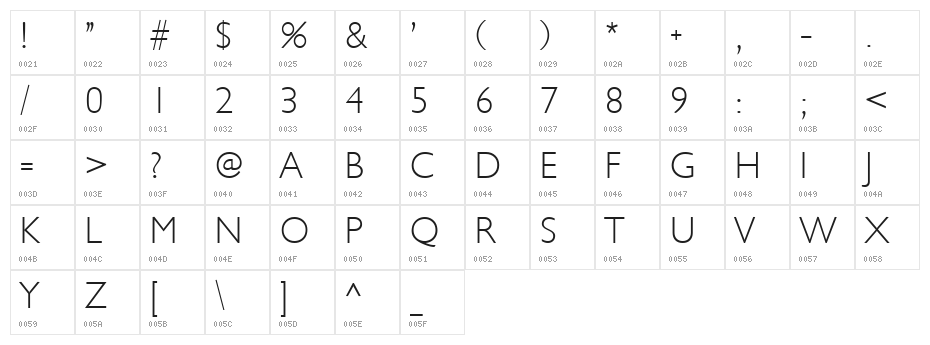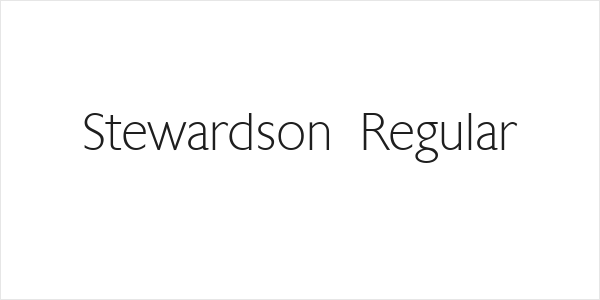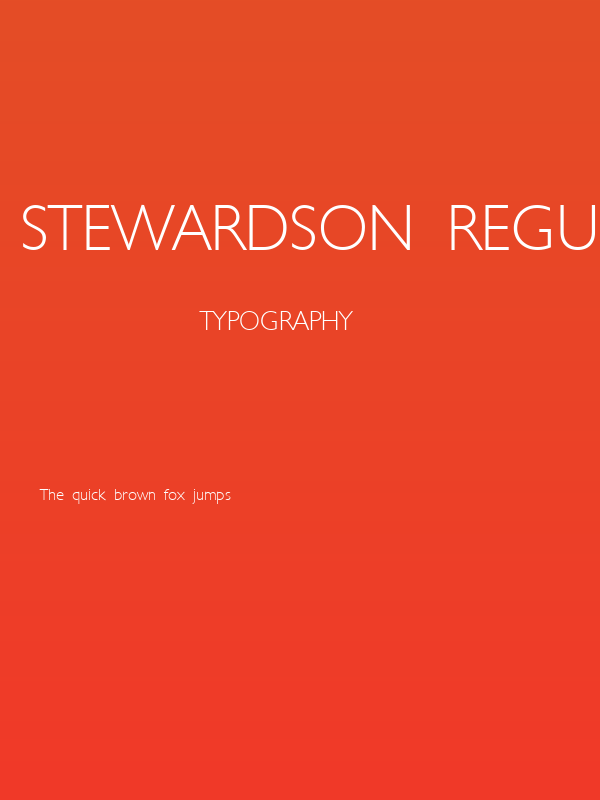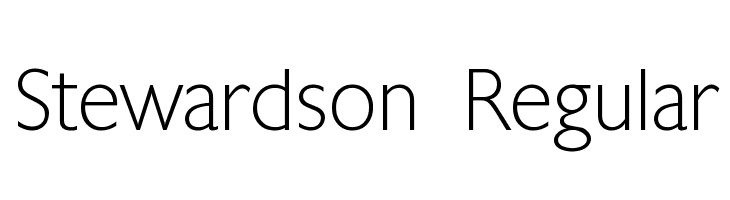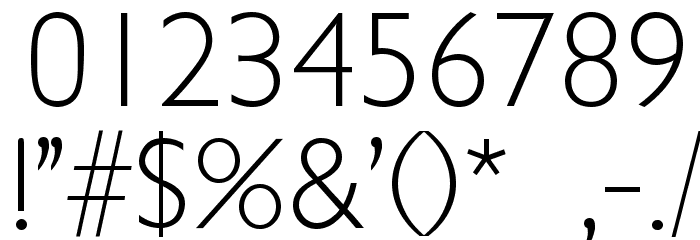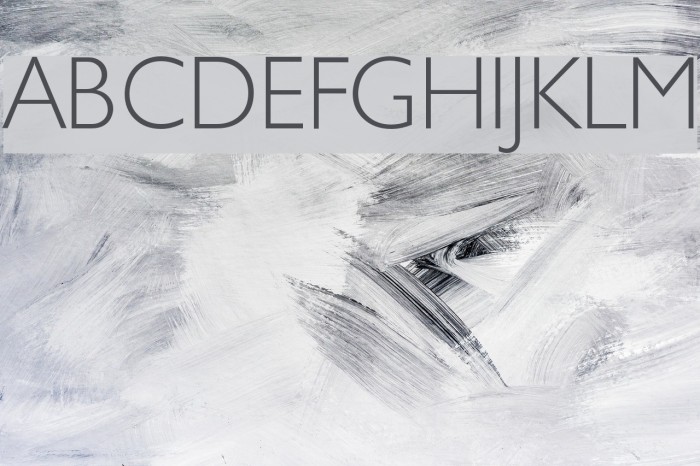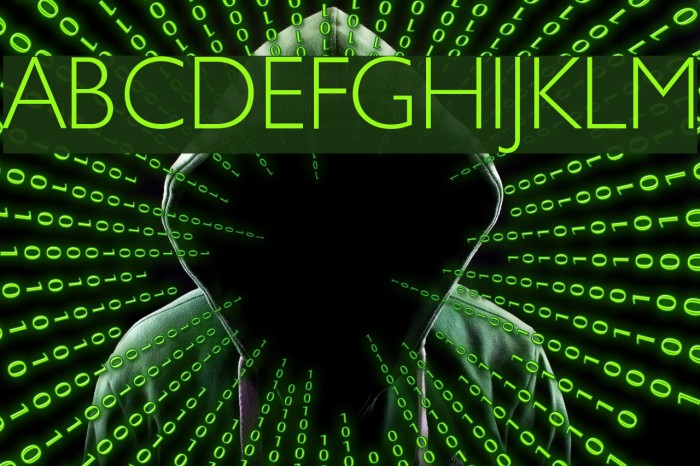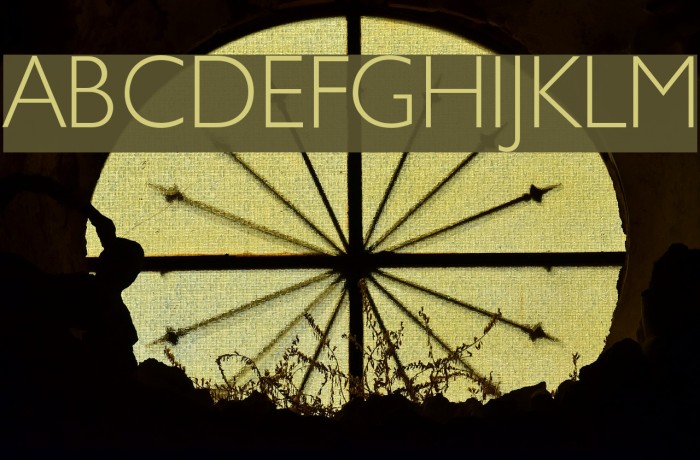
Stewardson Regular Font
Stewardson Regular Description
This font presents a clean and modern aesthetic with a sans-serif style, characterized by its simplicity and clarity. The characters are evenly spaced, providing a balanced and harmonious look. The uppercase and lowercase letters maintain a consistent height and width, ensuring readability. The numerals are straightforward and align well with the overall design. Special characters are distinct and integrate seamlessly with the rest of the typeface. This font's minimalist approach makes it versatile for various applications.
| Use Case | Headlines, Body text, Logos |
| Proposed Projects | Ideal for branding, web design, corporate materials, and editorial layouts. |